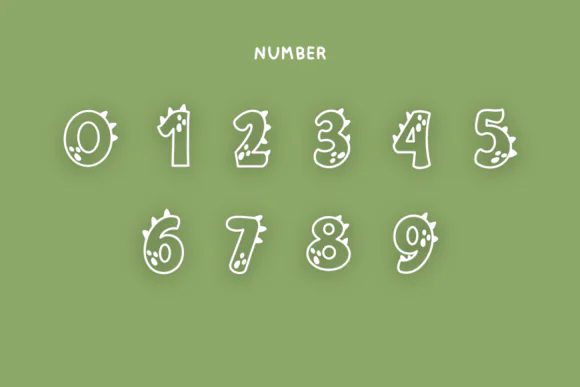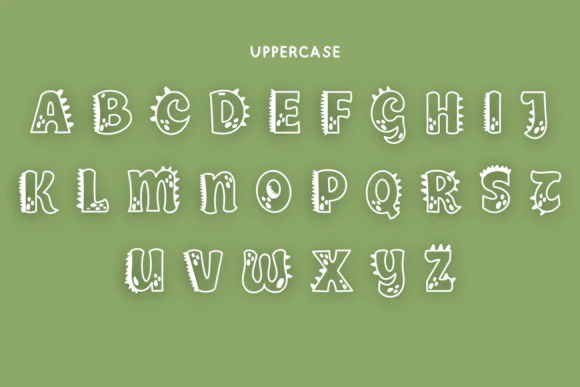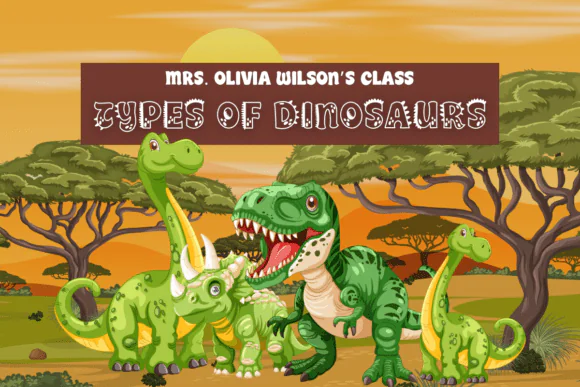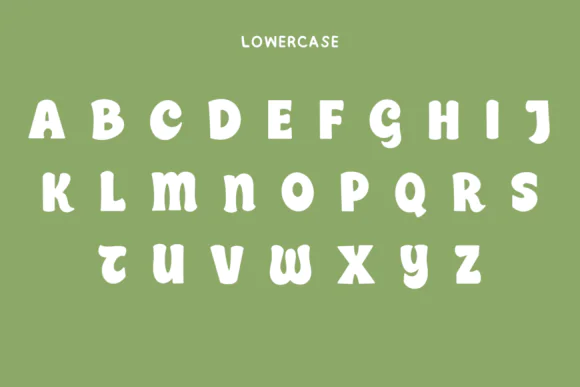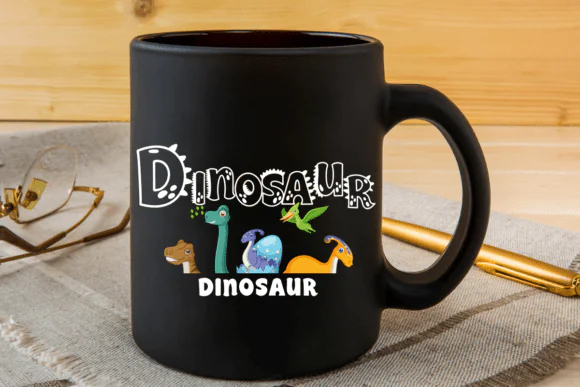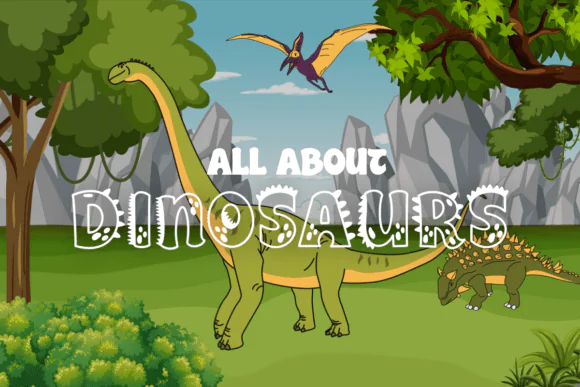
Dinosaur Font | Playful Decorative Typeface for Kids Designs, Greeting Cards, Mugs, T-Shirts, Banners, Stationery, Social Media Posts & Fun Creative Projects
Add fun, charm, and playful personality to your creative projects with Dinosaur Font, a decorative typeface designed to make your designs feel cheerful, expressive, and memorable. With its distinctive style and whimsical appearance, this font is perfect for projects that need a cute, creative, and eye-catching look.
Dinosaur Font is ideal for designers, crafters, stationery makers, print-on-demand sellers, small business owners, teachers, parents, and digital product creators who want a fun font for children’s designs, playful branding, cards, mugs, t-shirts, banners, diary pages, and social media graphics.
This font works beautifully for greeting cards, kids’ birthday invitations, classroom materials, nursery wall art, colorful banners, mugs, tote bags, t-shirts, stickers, notebooks, diary entries, notetaking designs, stationery layouts, and sentimental handmade projects. Its decorative charm helps ordinary text become more lively and visually appealing.
Whether you are creating a dinosaur-themed birthday design, cute kids’ apparel, fun classroom printables, playful mug graphics, colorful social media posts, or personalized stationery, Dinosaur Font adds a unique and joyful touch to every design.
• Kids’ designs
• Dinosaur-themed projects
• Greeting cards
• Birthday invitations
• T-shirt designs
• Mug designs
• Banners
• Stationery art
• Diary pages
• Notetaking layouts
• Social media posts
• Stickers and labels
• Classroom printables
• Nursery wall art
• Print-on-demand products
Key Style Features
• Playful decorative font style
• Fun dinosaur-inspired personality
• Cute and whimsical appearance
• Great for kids and family-friendly designs
• Suitable for cards, mugs, t-shirts, and banners
• Perfect for stationery and social media graphics
• Creative and expressive display typography
• Ideal for sentimental and cheerful projects